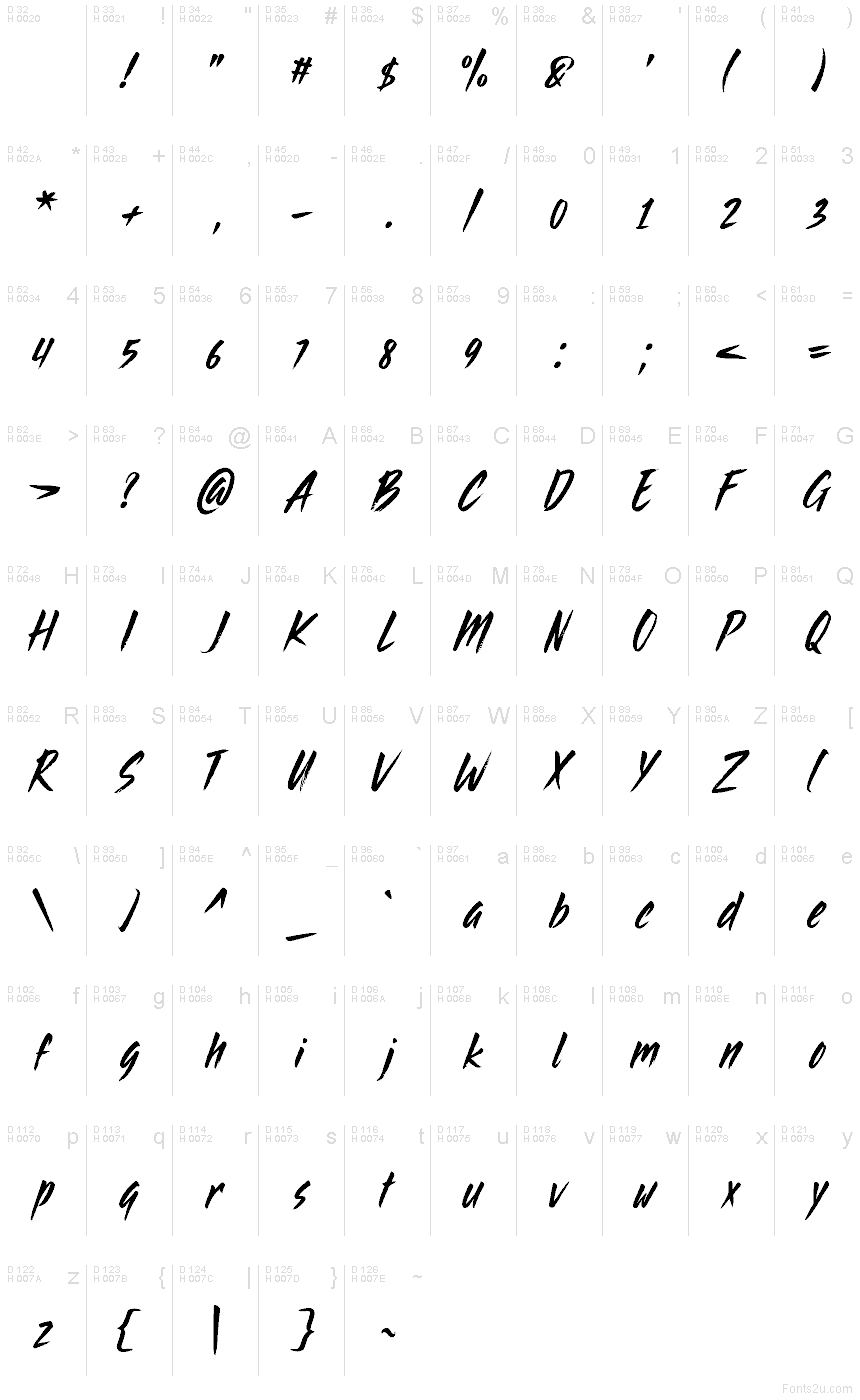
Bloom & Blush
Bloom & Blush font by Cat.B is a free brush font featuring an expressive and casual design. It has an artistic flair and a condensed width that makes it very recognizable. It is packed full of energy, made in a handmade style typical for modern designs that strive to give character to even the most boring presentations.
The energetic aesthetic of this creative resource makes it suitable for various digital art forms such as video games, comics, video/photo editing, advertising campaigns, branding projects, and literally any other graphic design project. Let your imagination loose in exploring ideas where this beautiful font may be used!